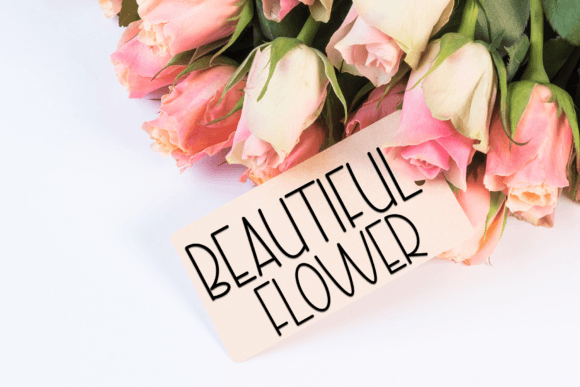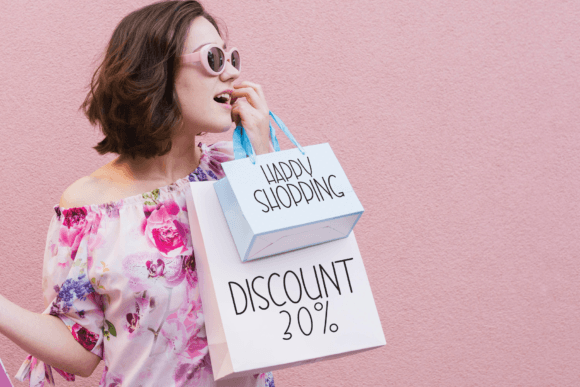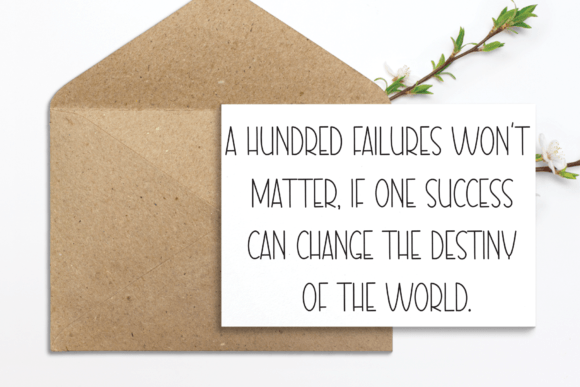
Introduction to Close Order Font
Do you remember the feeling of excitement when you first saw your wedding invitation, or the moment you designed a card for a loved one’s birthday? The joy of creating something special for someone is a unique experience that designers and artists cherish. This time, we’re excited to introduce you to Close Order Font, a sweet and friendly handwritten font that can elevate your creative project to the next level.
As a valuable design resource, Close Order Font is perfect for writing wedding invitations, cards, or any other design that requires a lovely touch. With its fresh and casual feel, this font is ideal for designers who want to add a personal and high-quality touch to their work. Plus, with a transparent background option available, you can easily integrate it into your designs without any hassle.
Key Features of Close Order Font
- High-quality design: Close Order Font is a premium font designed for creative projects, offering a unique and sophisticated look.
- Perfect for digital and print projects: Close Order Font is suitable for both digital and print projects, including logos, posters, business cards, and more.
- Exclusive design resource: This font is a unique design resource that can help elevate your creative projects and stand out from the crowd.
Honest Review: Close Order Font
One thing that really stood out to me was the level of detail in the font’s design. The transparent background and clean lines give it a very professional look that would be perfect for a variety of design projects.
- High-quality design with a lot of detail
- Perfect for projects that require a modern, sleek look
- The font is not as versatile as some other options, with limited flexibility for customization
- May not be suitable for projects that require a more playful or whimsical feel
Overall, I’m really impressed with Close Order Font. While it may have some limitations, its high-quality design and free download make it a great resource for designers looking for a modern, sleek font. I’d definitely recommend checking it out for your next creative project.
The Close Order Font is ideal for use in a variety of creative projects, including:
- Business cards and brochures
- Marketing materials and social media graphics
- Print design and publishing